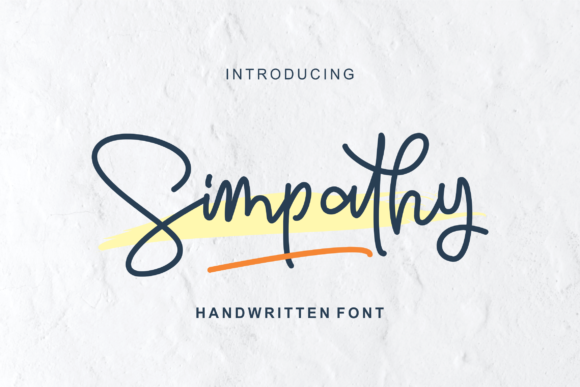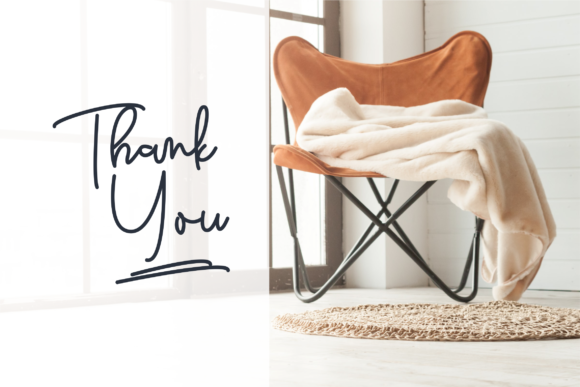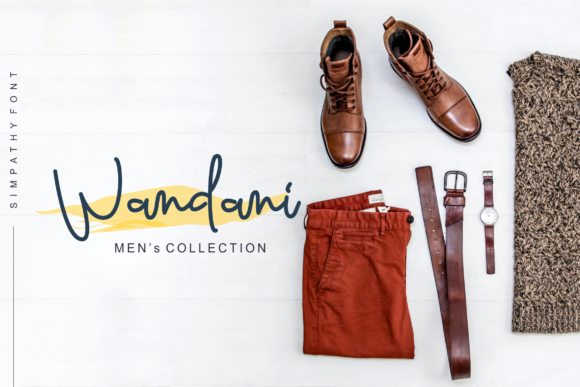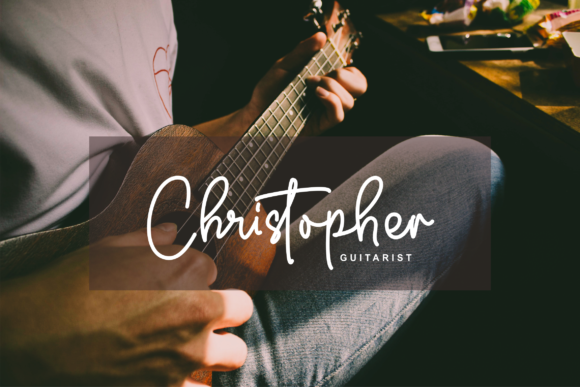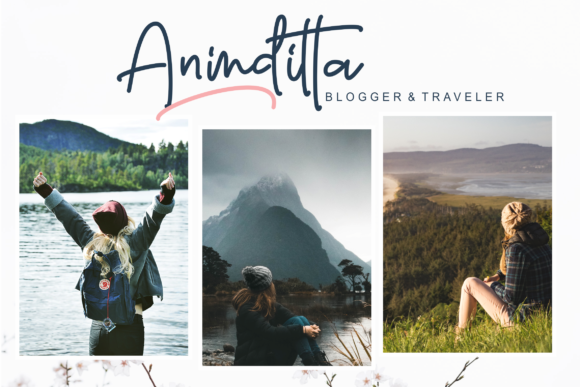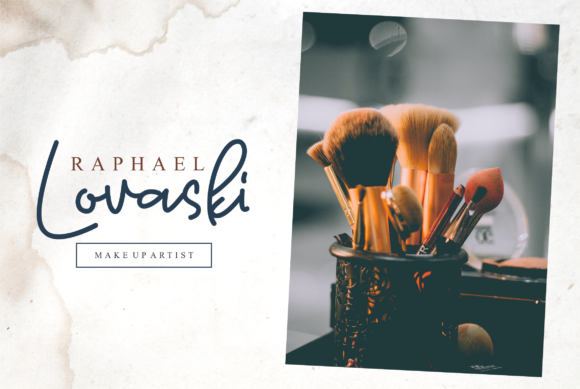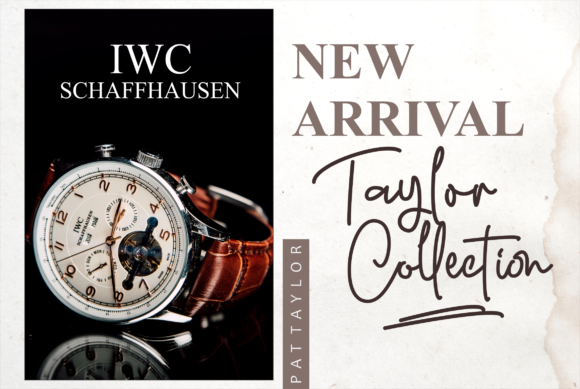
Sympathy Font
About Sympathy Font
Sympathy is an elegant signature font. Its casual charm makes it appear wonderfully down-to-earth, readable and, ultimately, incredibly versatile. Sympathy will look outstanding in any context, whether it’s being used on busy backgrounds or as a standalone headline!